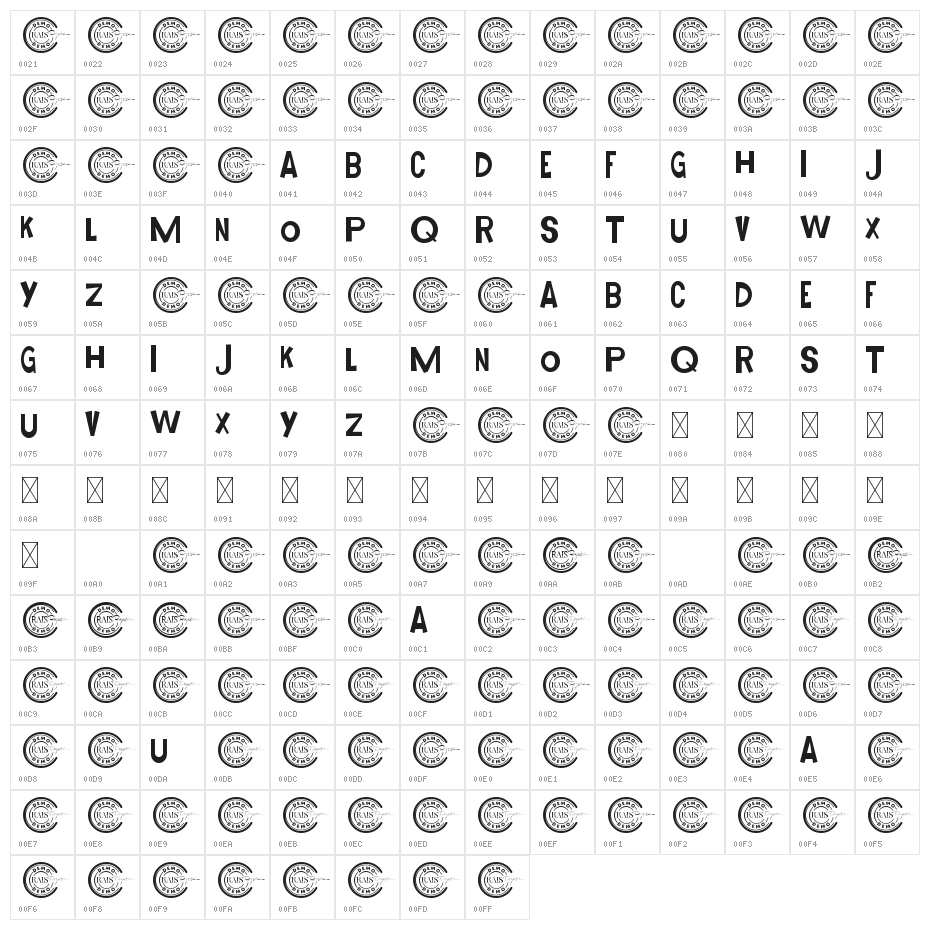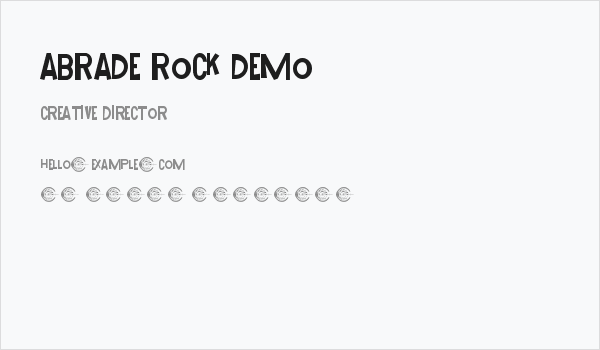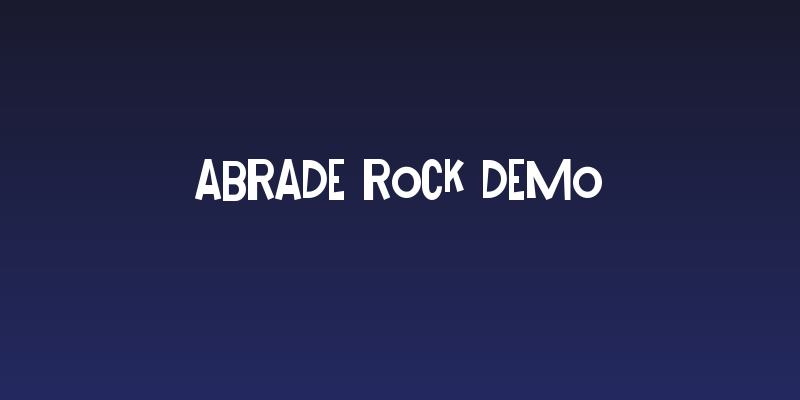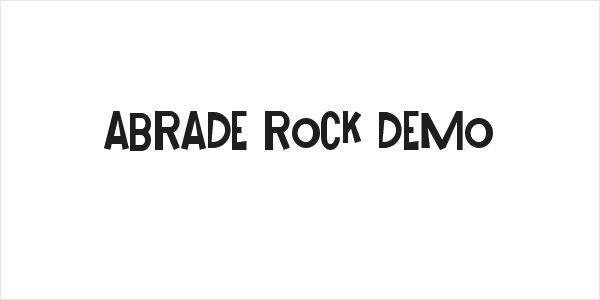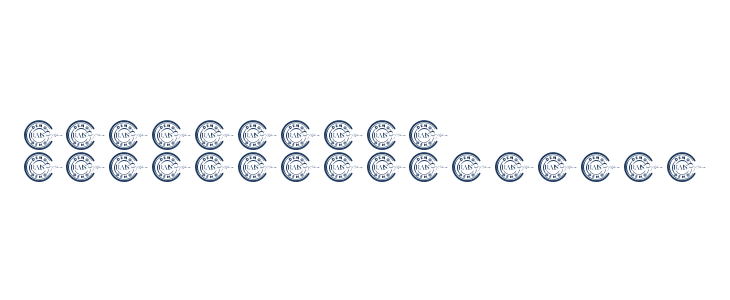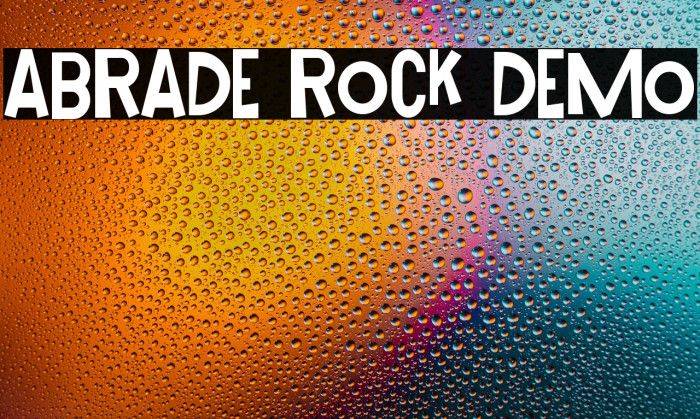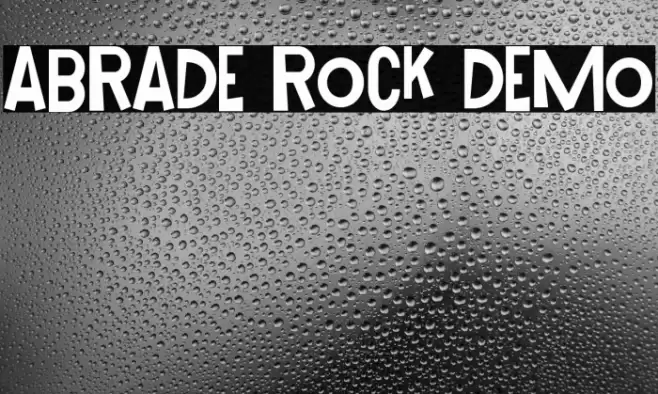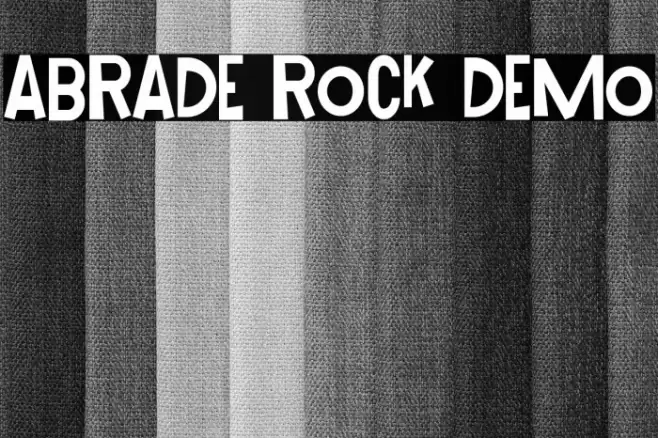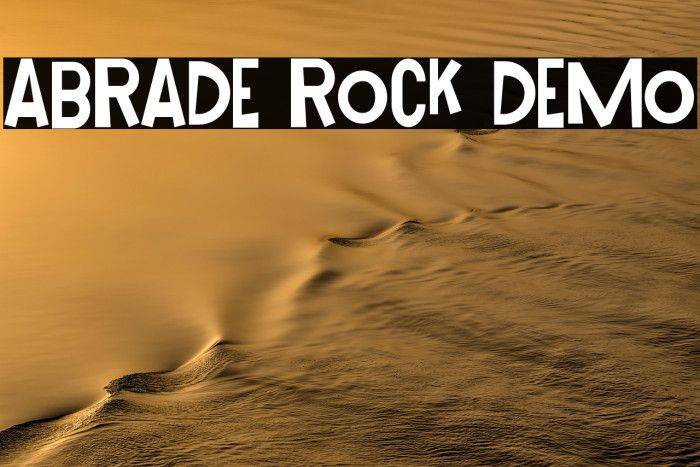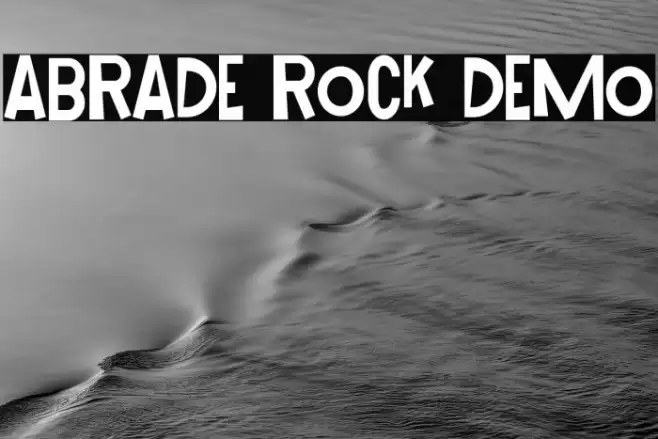
Abrade Rock Demo Font
This font features bold, angular characters with a strong presence, making it ideal for impactful designs. The uppercase letters are particularly striking, with sharp edges and a slightly condensed form that enhances their boldness. The lowercase letters maintain the same angular style, ensuring consistency throughout the typeface. The numerals are clear and distinct, matching the overall bold aesthetic. Special characters are included, providing versatility for various design needs. The font's unique style makes it suitable for projects that require a modern and edgy look.
| Proposed Projects | Ideal for music album covers, posters, branding, and any design requiring a strong visual impact. |